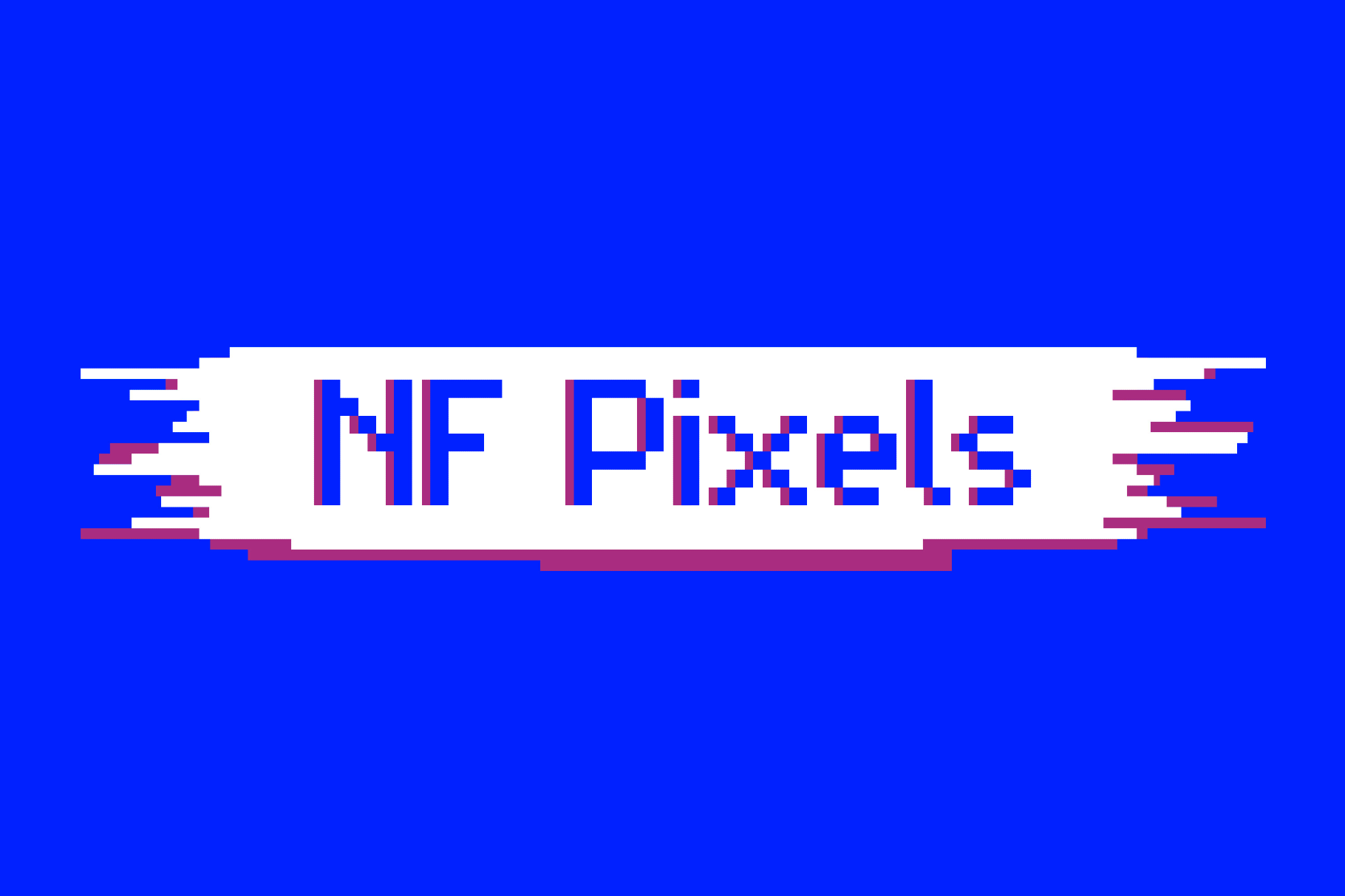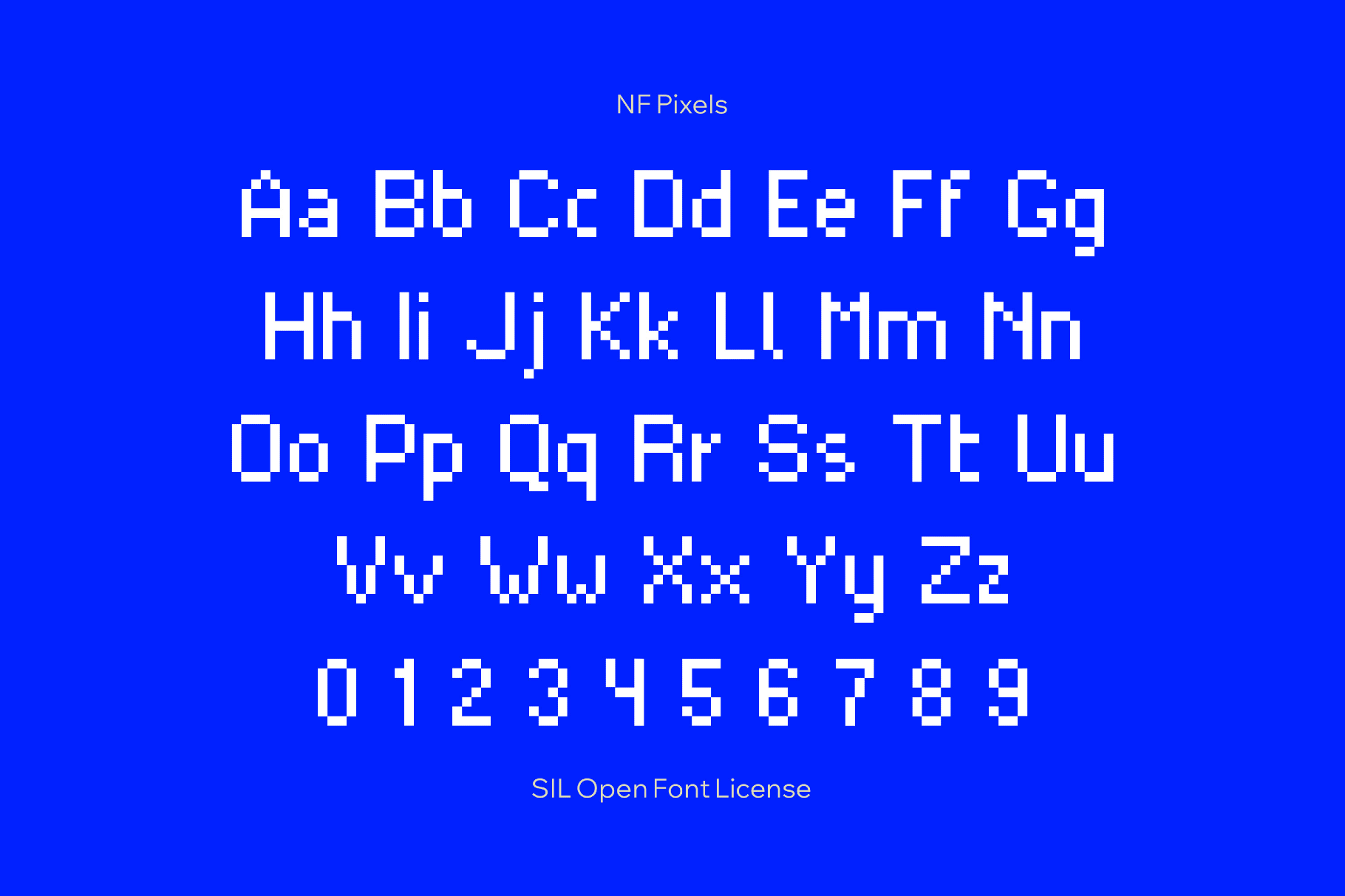
NF Pixels Font
NFPixels
NF Pixels is a minimalist typeface built on a straight grid. The letterforms use simple strokes, open counters, and tight spacing, so it is perfect for game interfaces, menu systems, HUD labels, stat blocks, magazines, lightweight dashboards, data widgets, app and OS mockups, pixel-art captions and speech bubbles, UI copy, and social visuals.